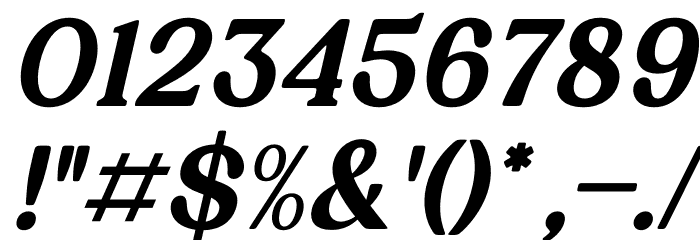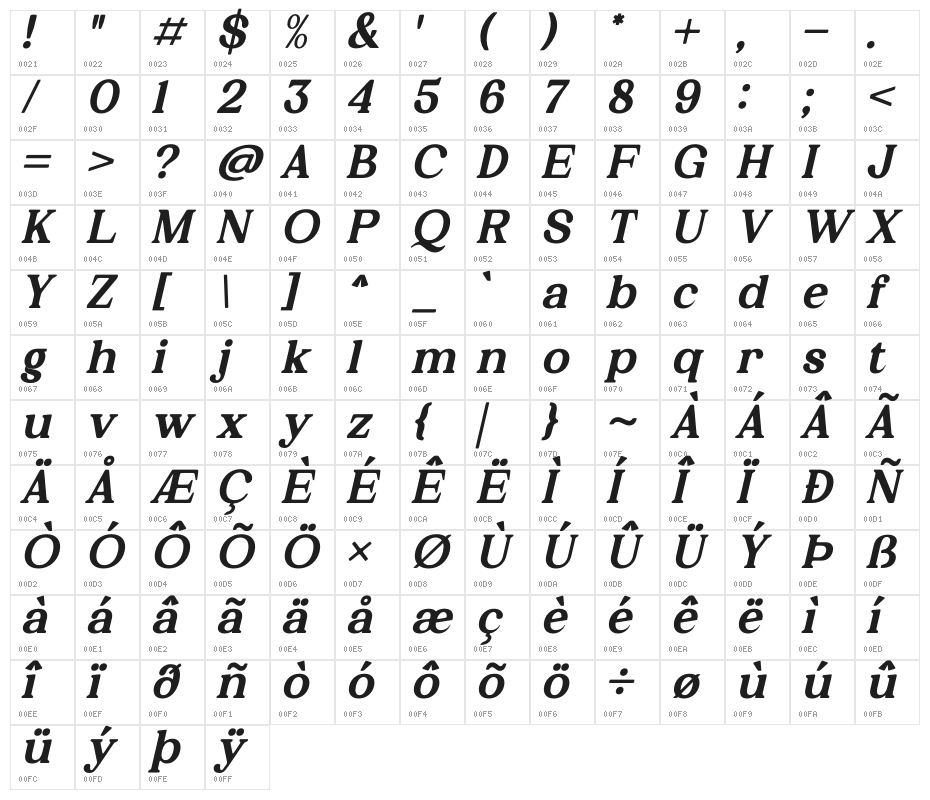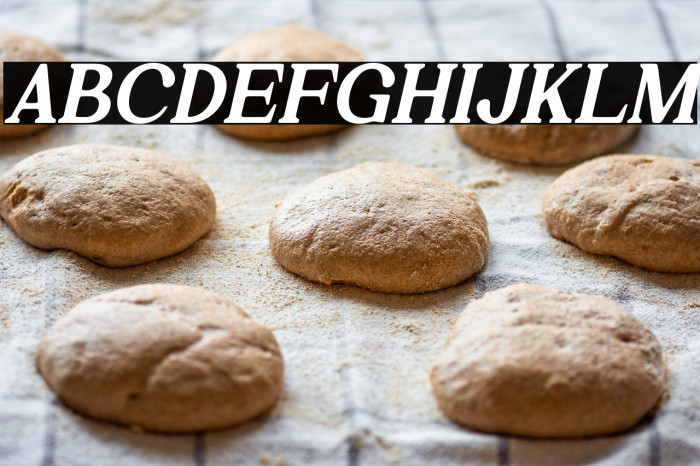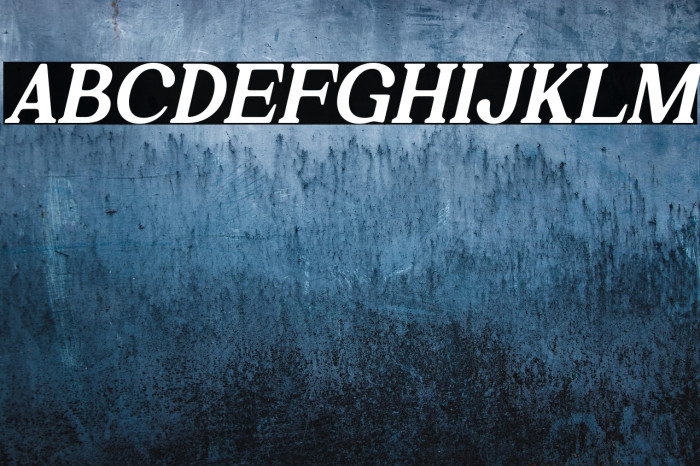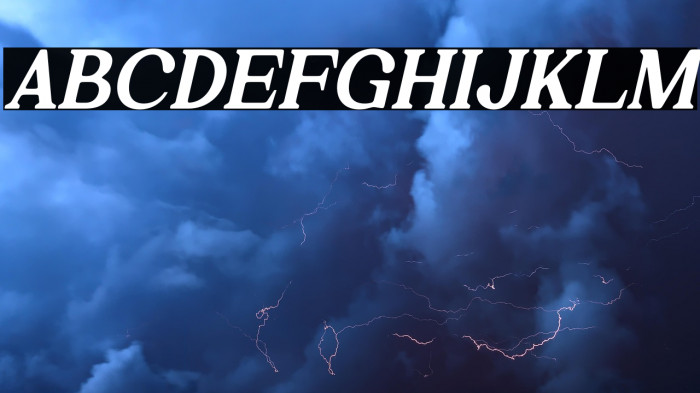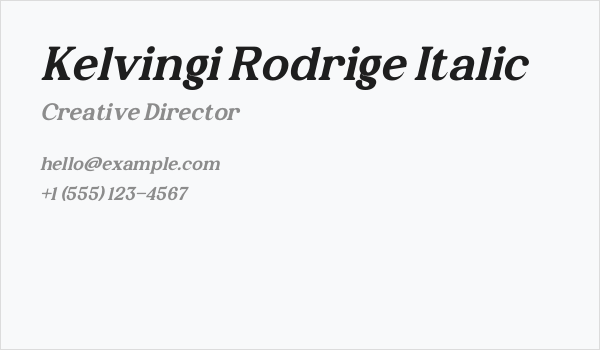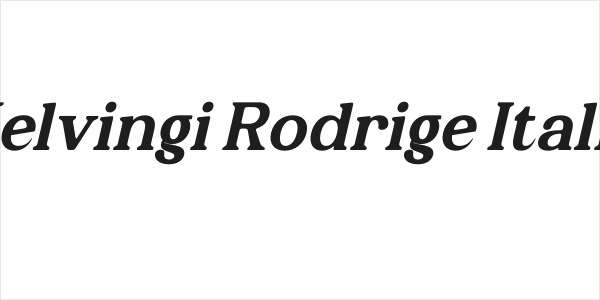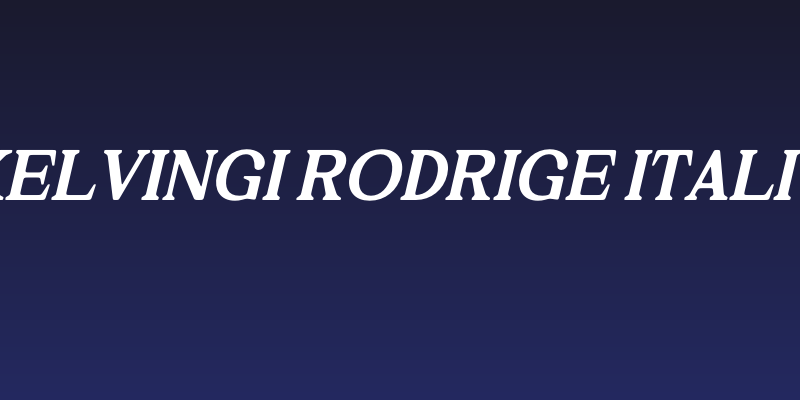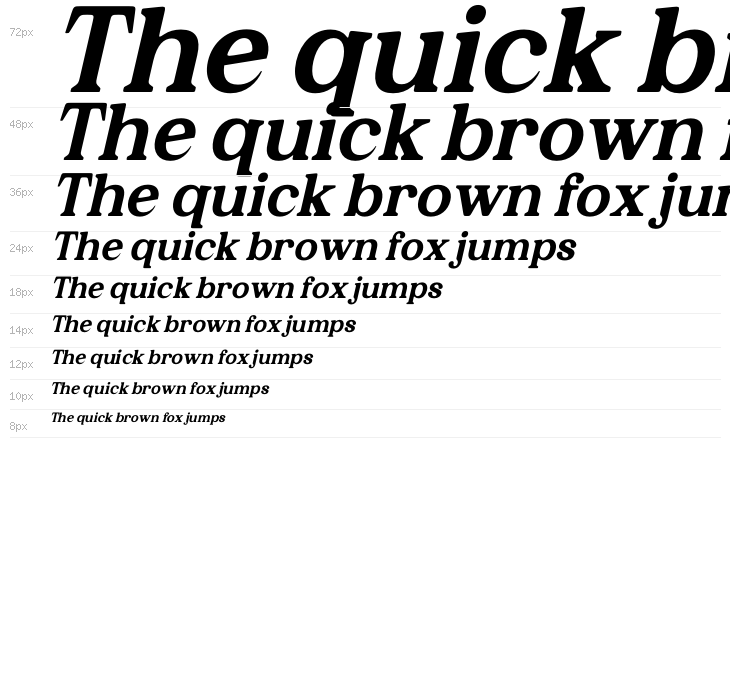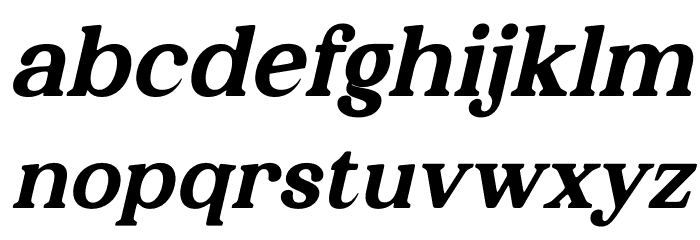
Kelvingi Rodrige Italic Font
Kelvingi Rodrige Italic Description
This font exhibits a classic serif style with a distinct italic slant, giving it an elegant and sophisticated appearance. The characters are well-defined with moderate stroke contrast, enhancing readability while maintaining a stylish flair. The uppercase letters are bold and commanding, while the lowercase letters maintain a smooth and flowing form. Numerals are clear and consistent, making them suitable for both text and numerical data. Special characters are thoughtfully designed, complementing the overall aesthetic. This font is versatile, suitable for a range of applications from formal documents to creative projects.
| Proposed Projects | Ideal for formal invitations, editorial design, branding, and elegant web design. |